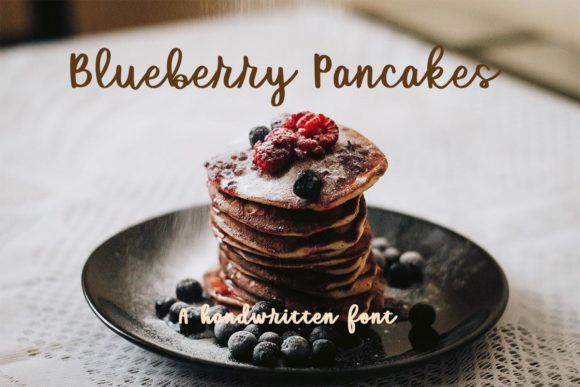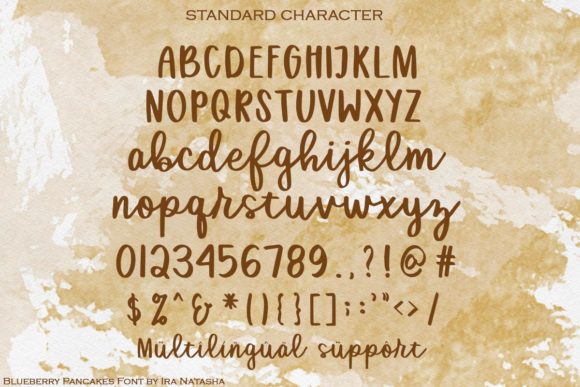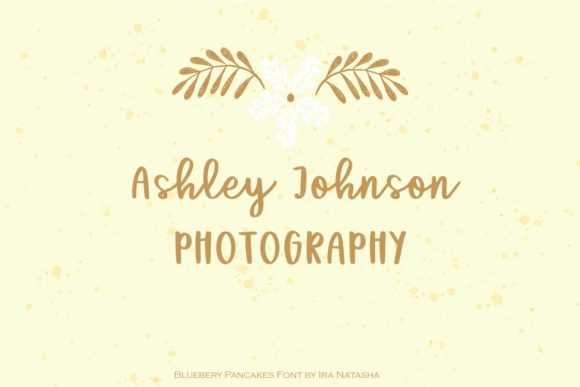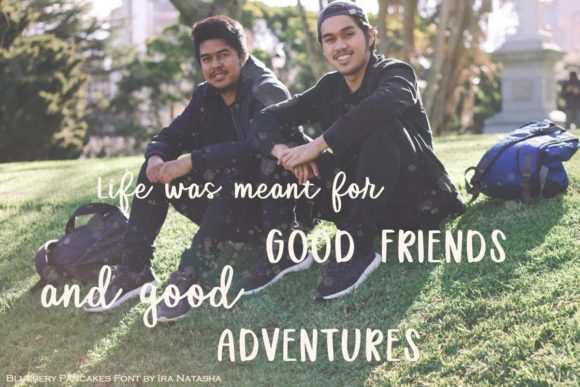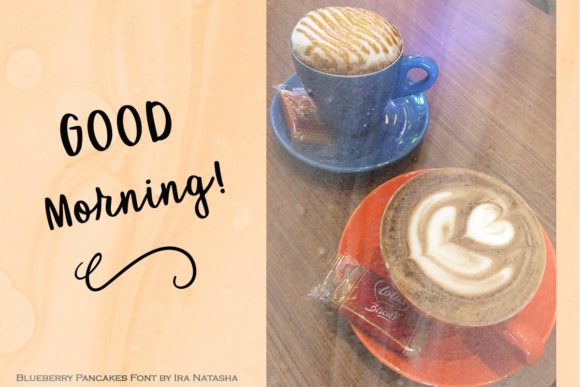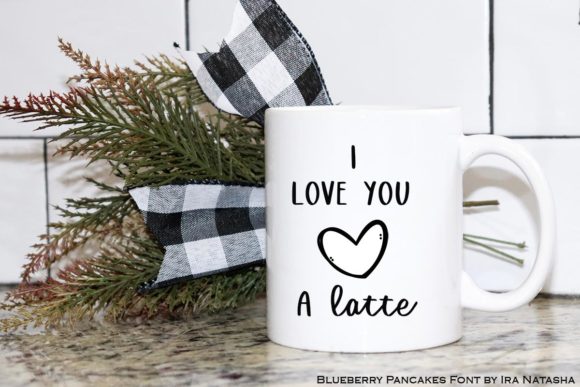
Blueberry Pancakes Font
About Blueberry Pancakes Font
Blueberry Pancakes is a clean and incredibly beautiful font, masterfully designed to become a true favorite. It maintains its classy calligraphic influences while feeling contemporary and fresh. Fall in love with this font and bring your projects to the highest levels!